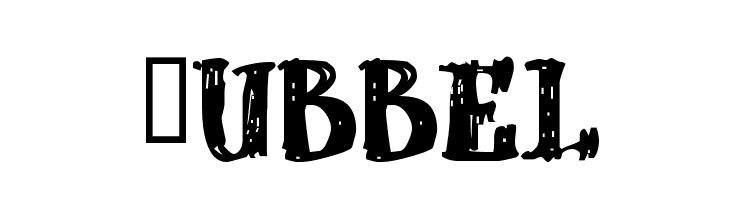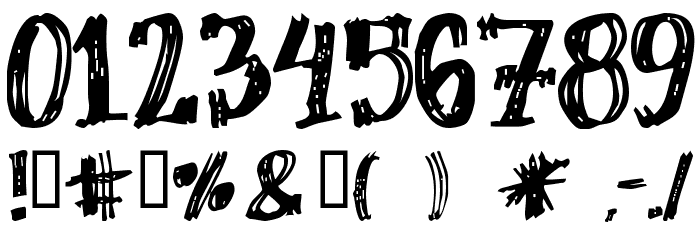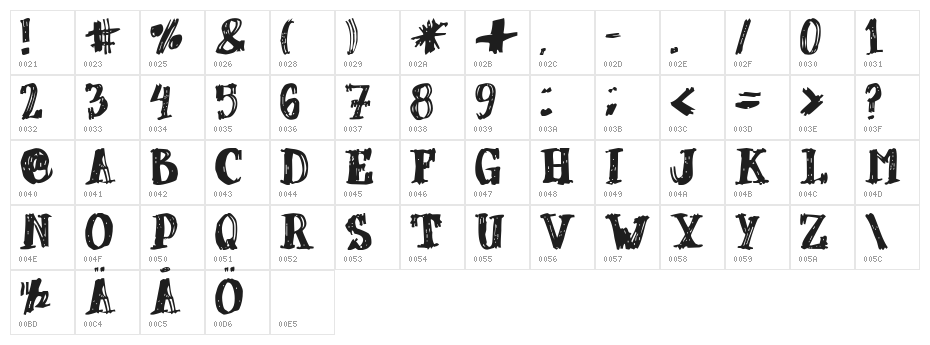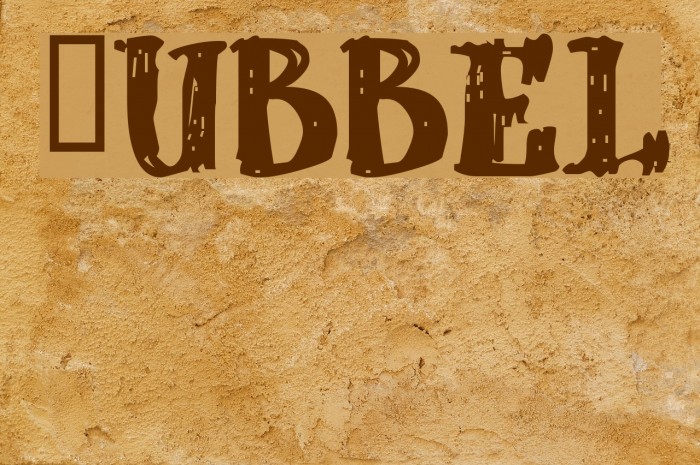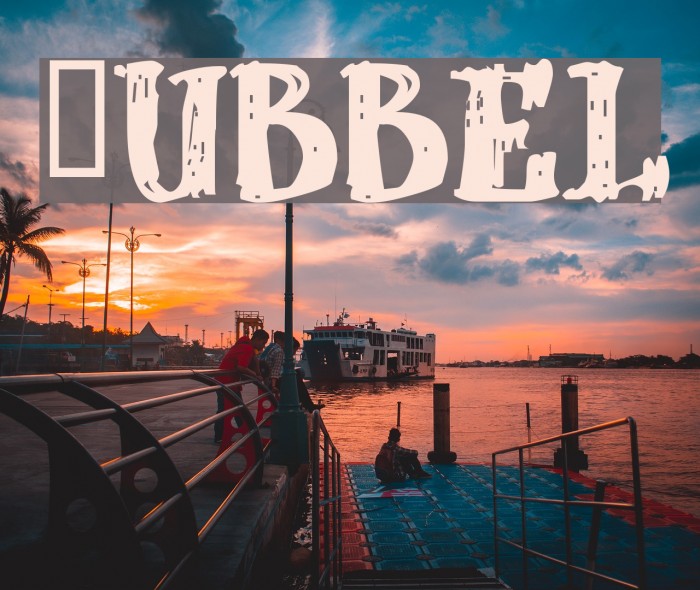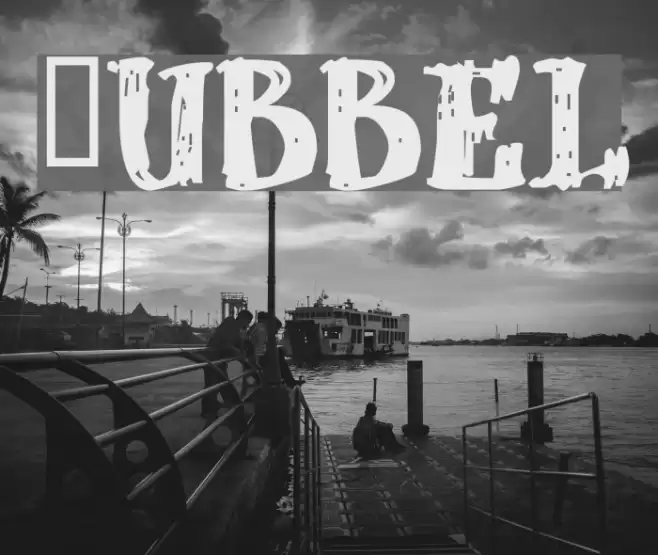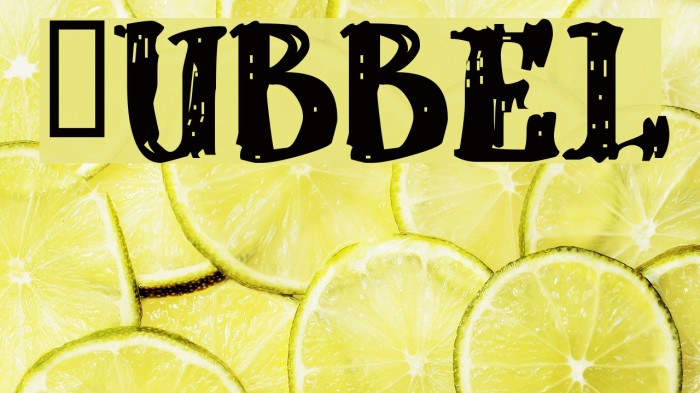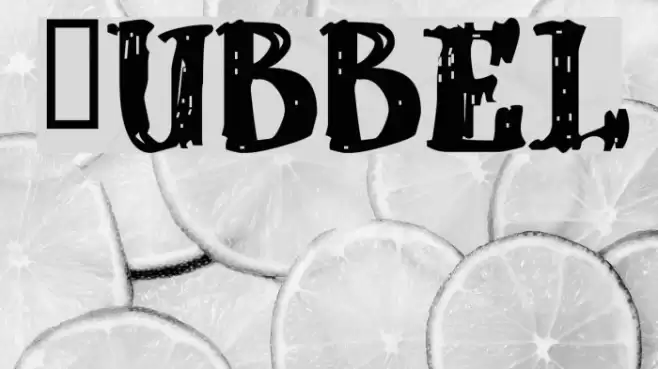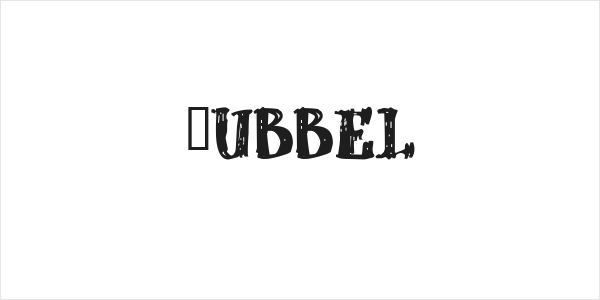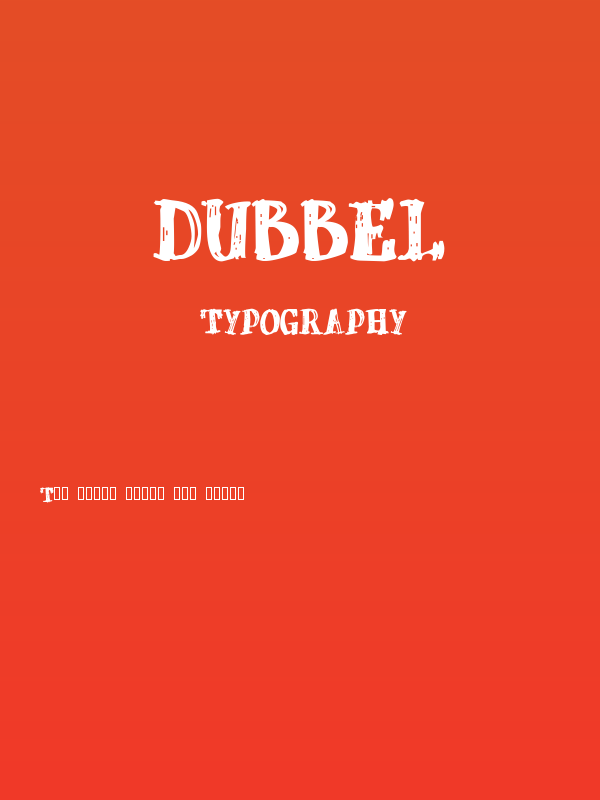
dUBBEL Font
dUBBEL Description
This font features a bold and distressed style, with a grunge aesthetic that gives it a rugged and edgy appearance. The characters are heavily textured, with irregular edges and a hand-drawn feel that adds to its unique charm. The uppercase letters are particularly striking, with a strong presence that commands attention. The numbers and special characters maintain the same distressed look, ensuring consistency across all elements. This font is perfect for projects that require a bold statement or a vintage, rebellious vibe.
| Overall Style | Grunge, Vintage |
| Proposed Projects | Ideal for music album covers, posters, branding for edgy or alternative products, and any design needing a bold, rebellious touch. |